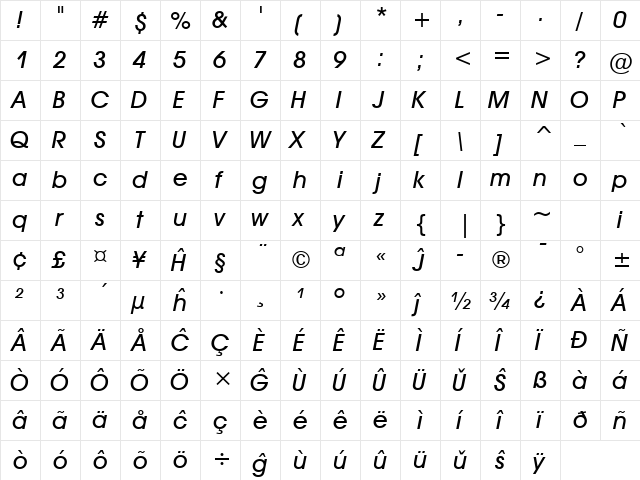
AvantGarde Md BT Eo Medium Oblique
Design Context for AvantGarde Md BT Eo Typeface
AvantGarde Md BT Eo takes a measured approach to typography — its balanced proportions and neutral character make it a reliable workhorse for both digital and print work. Its italic angle brings a sense of urgency and motion to the letterforms.
Pro Tip: Use AvantGarde Md BT Eo for emphasis, pull quotes, and subheadings where its slanted energy can add rhythm to the layout.